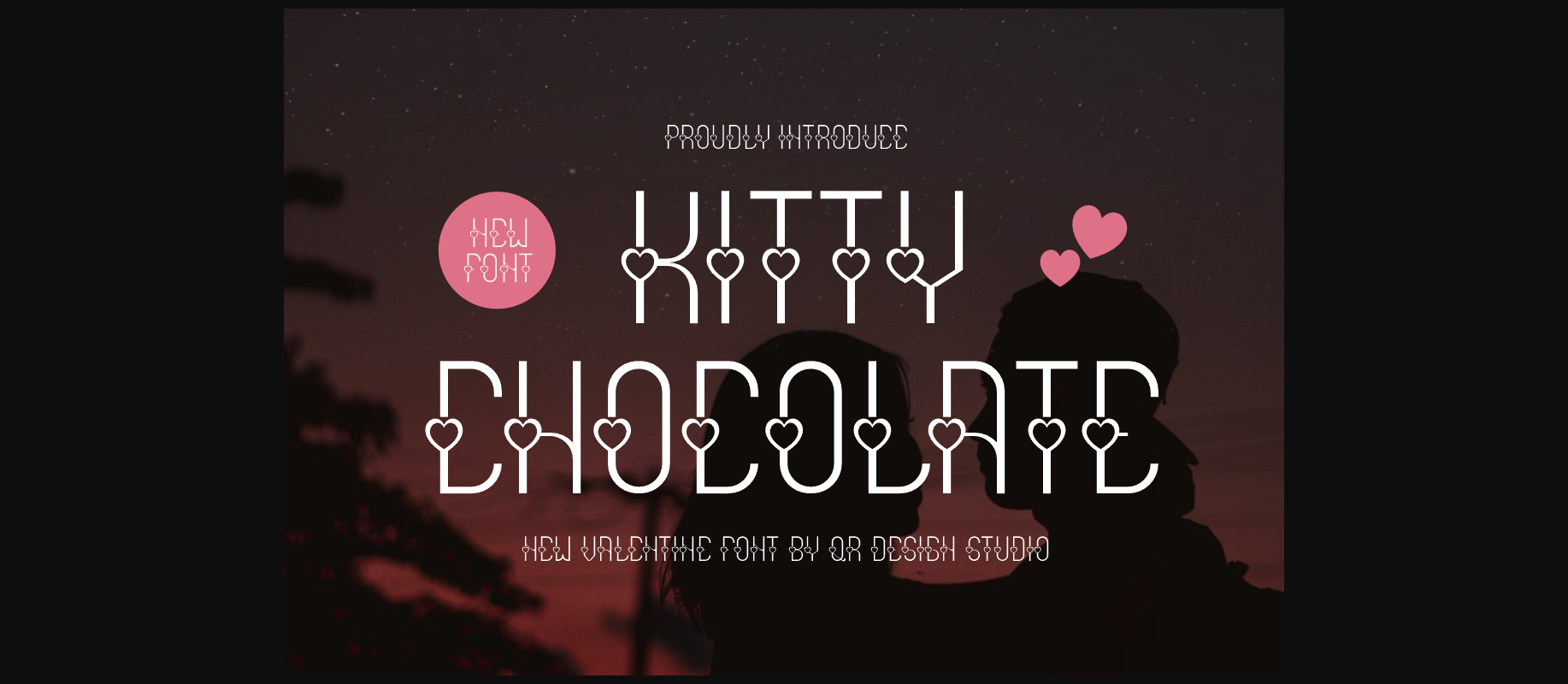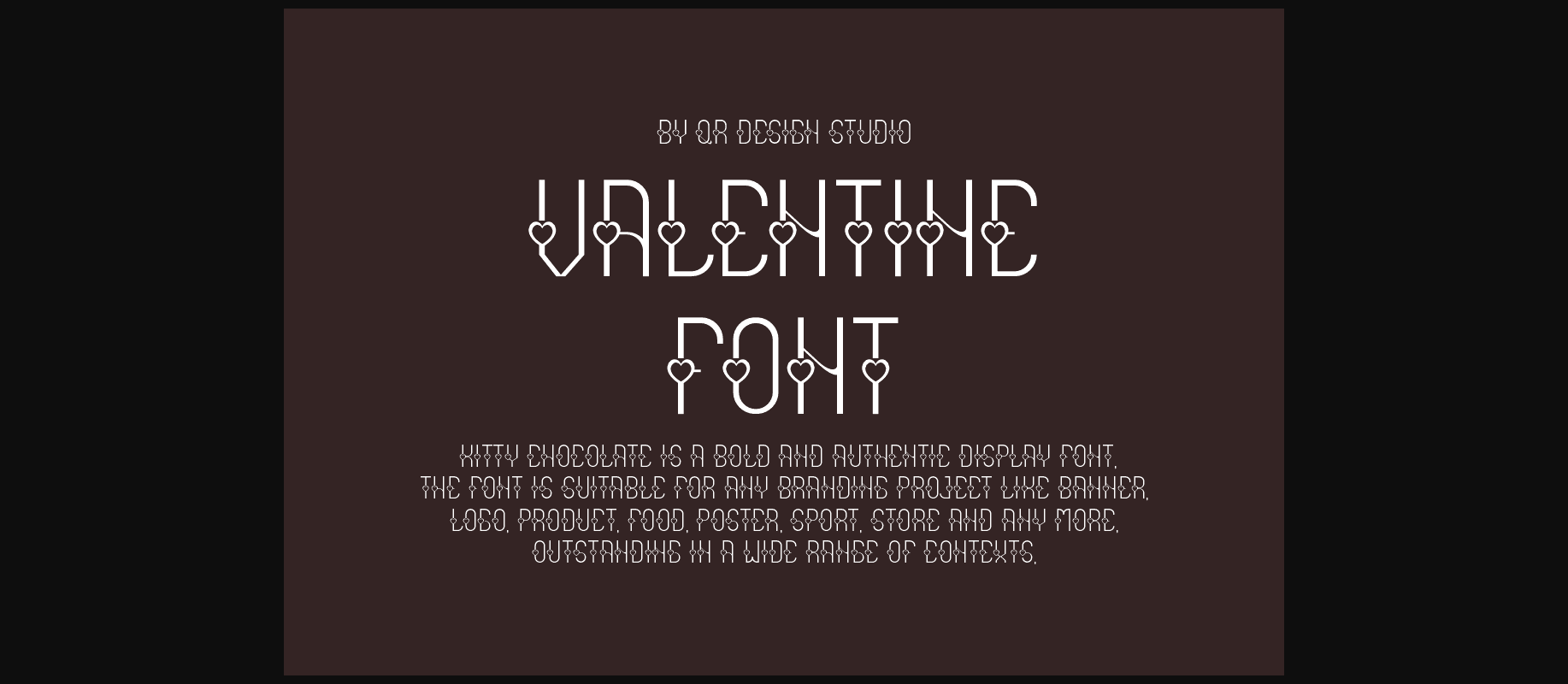
About Kitty Chocolate Font
Kitty Chocolate is an adorable decorative font that adds sweetness to your text. Each letter is crafted with care, featuring charming hearts nestled within the lines. Perfect for creating a cute and affectionate atmosphere, this font is ideal for invitations, cards, and projects that need a touch of love. Let Kitty Chocolate infuse your designs with playfulness and warmth, making every word as sweet as a treat.